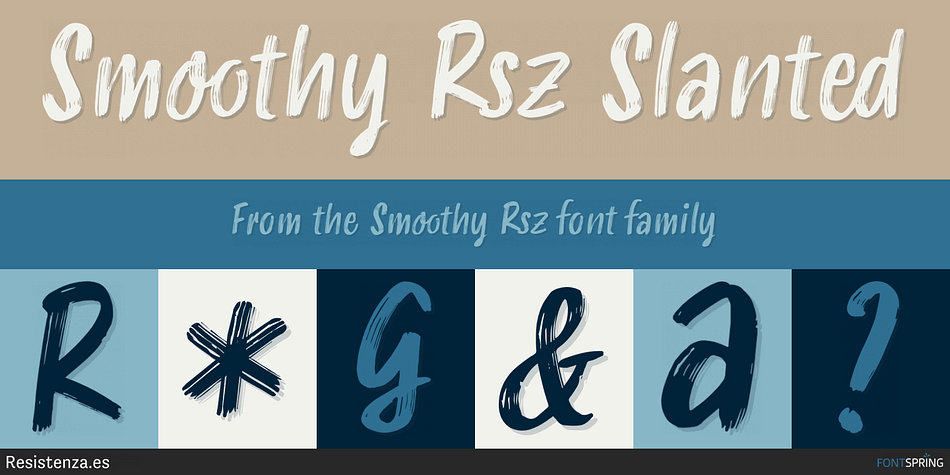
Designed by Giuseppe Salerno and Paco González, Smoothy Rsz is a brush script font family. This typeface has two styles and was published by Resistenza.es.
Smoothy Rsz Slanted
Hello Smoothy - brush script with attitude! This font is the perfect mix between freshy and serious. Urban, modern, handwritten, sign painting inspired, Smoothy is perfect for various occasions. Wedding invitations, T-shirts or cards, Instagram posts, is very flexible.
Ligatures and stylistic alternates makes this font even more “human”.